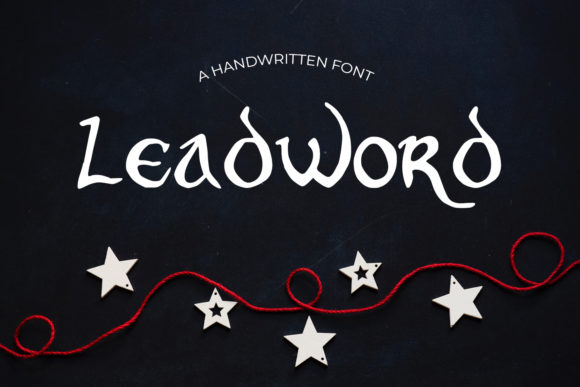
Immerse yourself in the enchanting world of Leadword Font, a breathtaking script font family that will leave you spellbound with its captivating allure. Experience the fusion of elegance and modernity as your designs take on a life of their own. Leadword Font is not merely a font; it's an artistic journey that will elevate your creations to new heights of sophistication.
With its mesmerizing dance of thick and thin strokes, Leadword Font possesses an inherent balance and variation that adds a touch of intrigue to every letterform. Whether you're crafting logos, branding materials, or social media graphics, Leadword Font will effortlessly enhance the visual appeal of your projects, leaving a lasting impression on your audience.
Leadword Font is more than just a font; it's an expression of your unique style and vision. Its intricate details and flowing curves will add a touch of charm and personality to your designs, making them stand out from the crowd. Unleash your creativity and let Leadword Font guide you on a journey of artistic exploration.
So, why settle for ordinary when you can embrace the extraordinary? Transform your designs into masterpieces with Leadword Font. Its modern aesthetic and timeless appeal will ensure that your creations remain relevant and captivating for years to come. Don't miss this opportunity to add a touch of magic to your design arsenal. Embrace Leadword Font today and unlock the door to a world of endless creative possibilities.